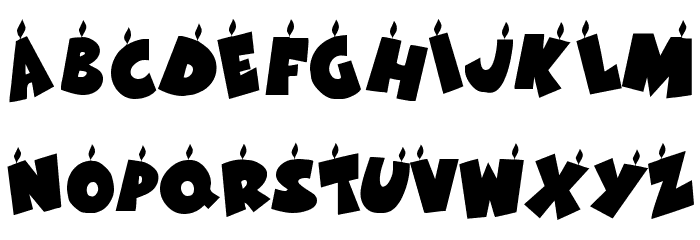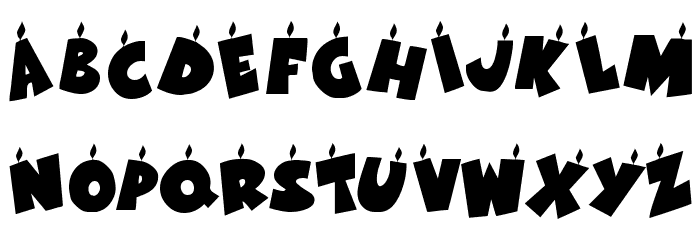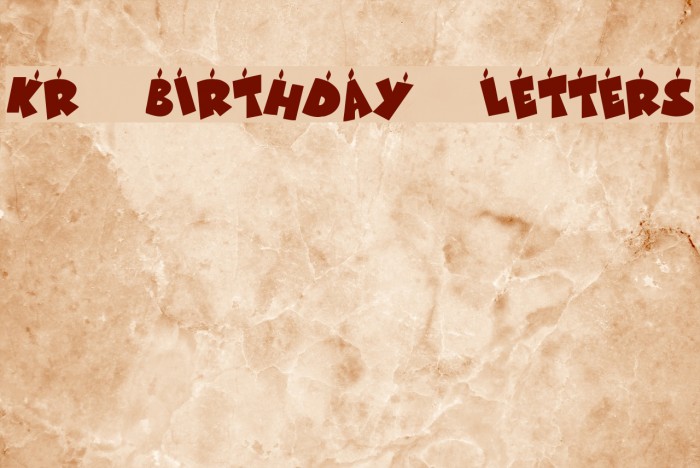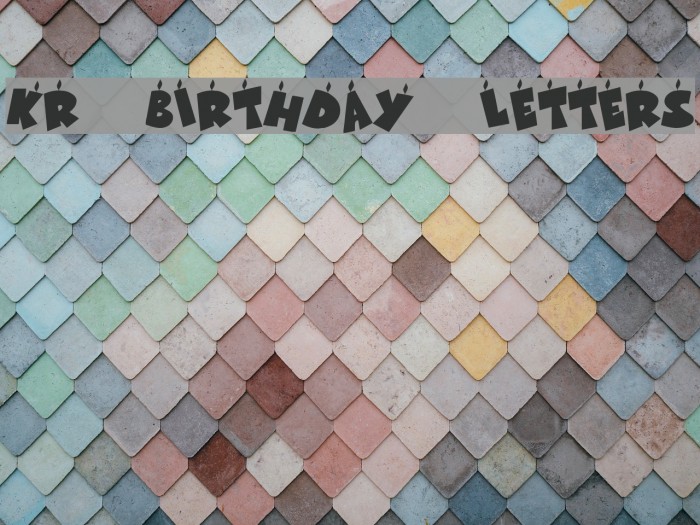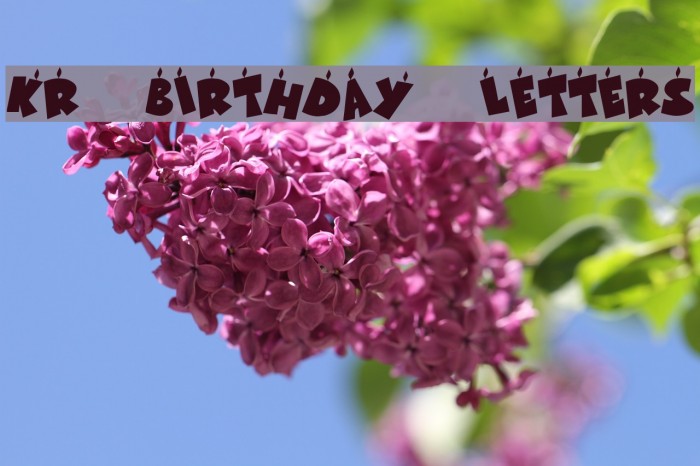
KR Birthday Letters Font
This playful and festive font features bold, uppercase letters adorned with small candle flames on top, reminiscent of birthday celebrations. The characters are slightly irregular, adding a whimsical and fun touch. The boldness of the letters ensures high visibility, making it ideal for eye-catching designs. The font exudes a sense of joy and celebration, perfect for party invitations, birthday cards, and festive banners. Its unique style captures the essence of a lively and cheerful atmosphere, making it a great choice for projects that aim to convey happiness and excitement.
A bold, festive font with candle-topped letters, perfect for celebrations.
- Proposed Projects: Ideal for birthday invitations, party banners, festive greeting cards, and playful event posters.